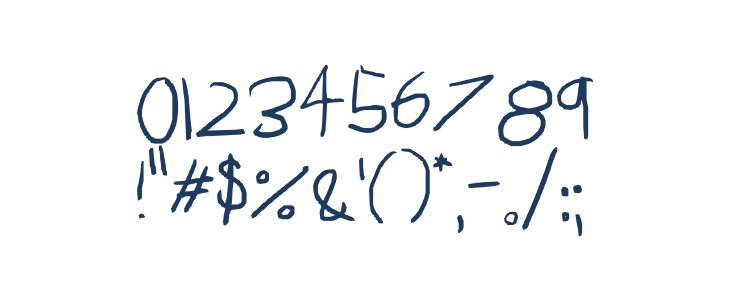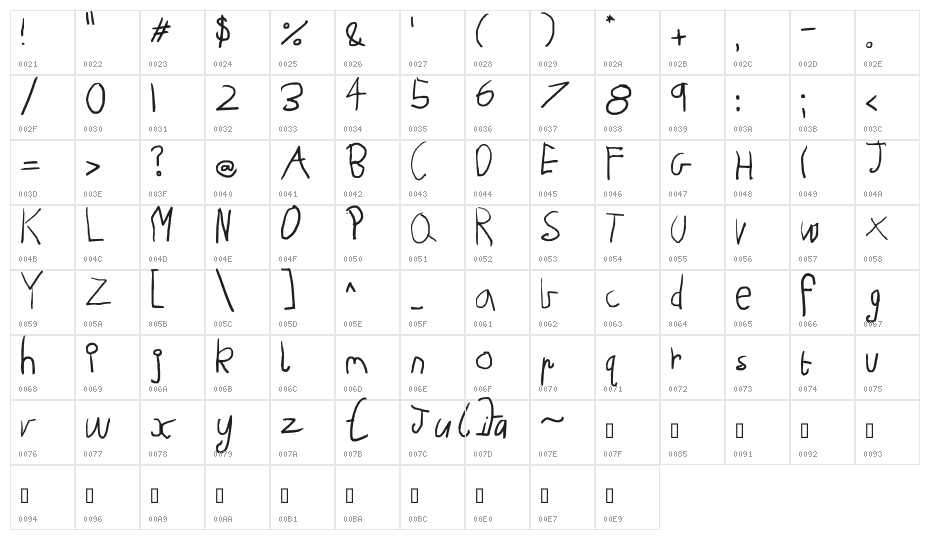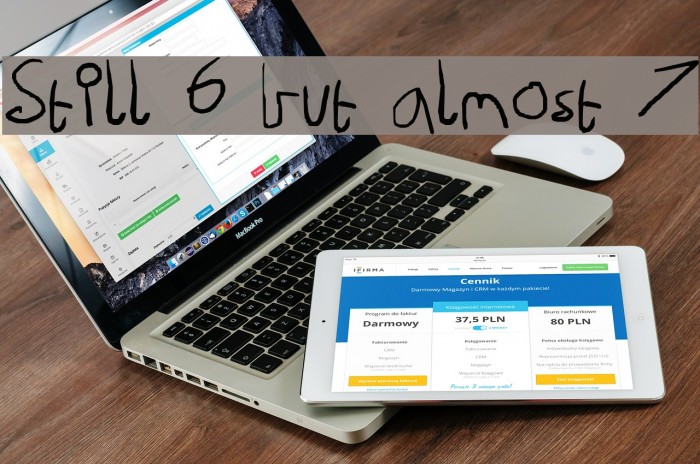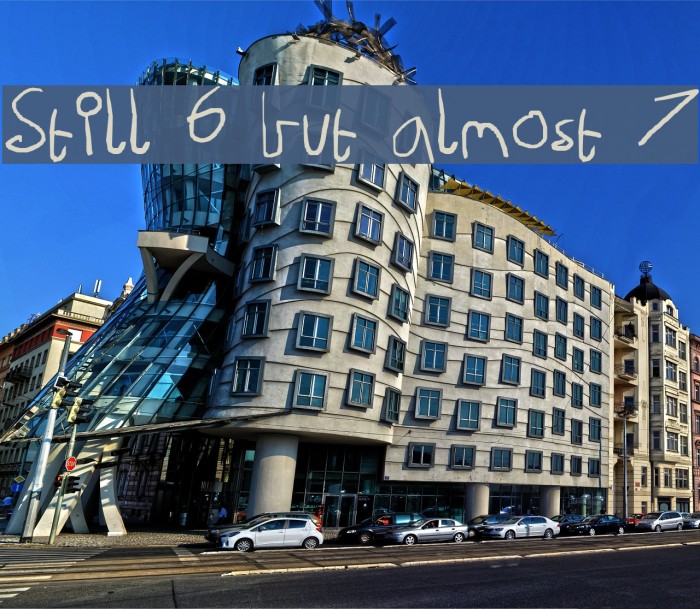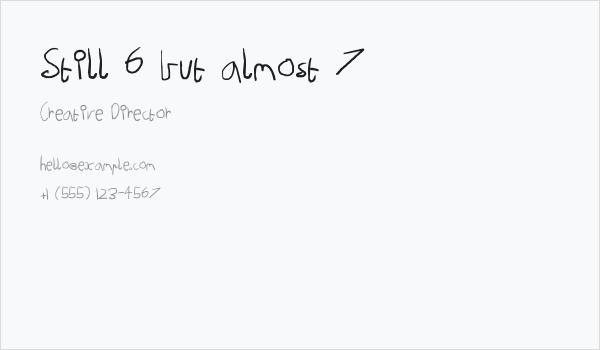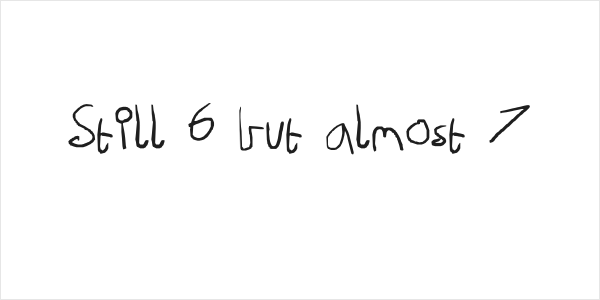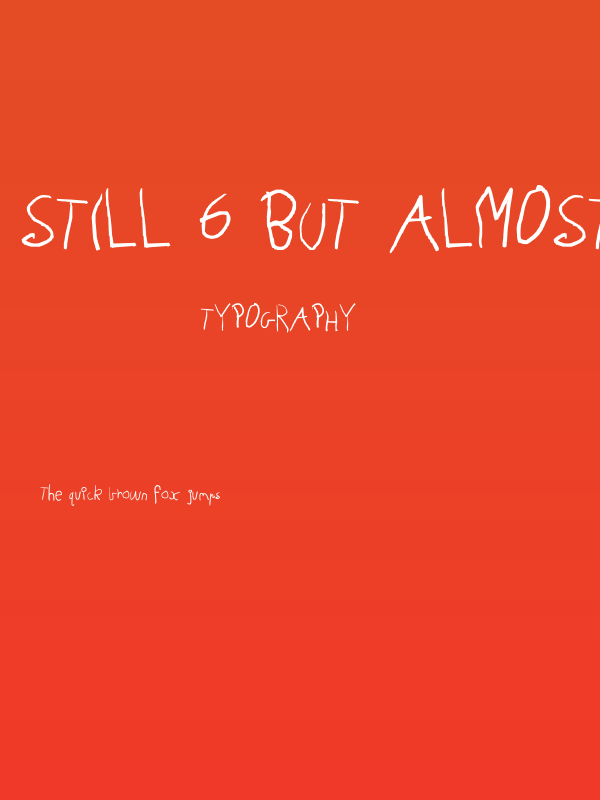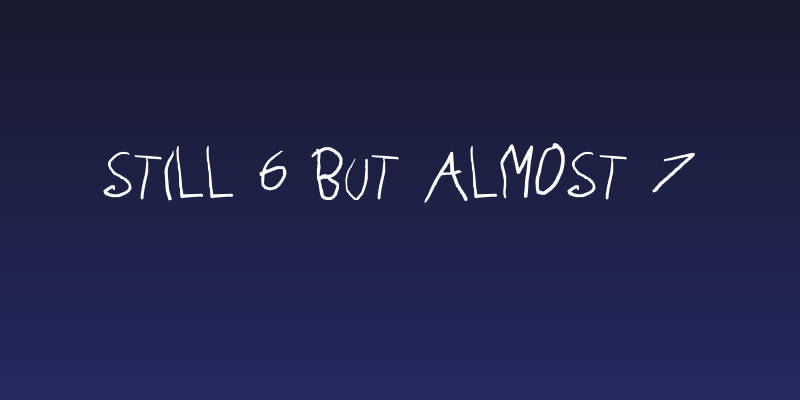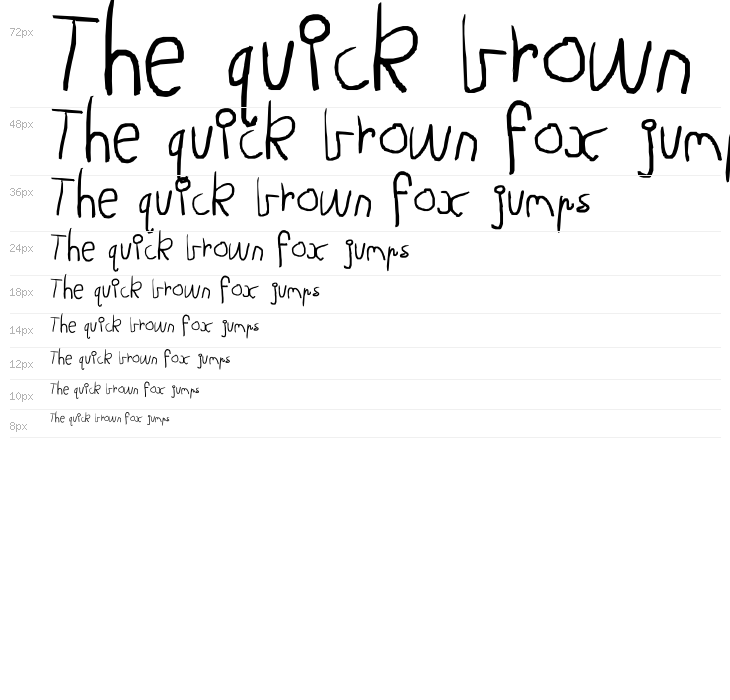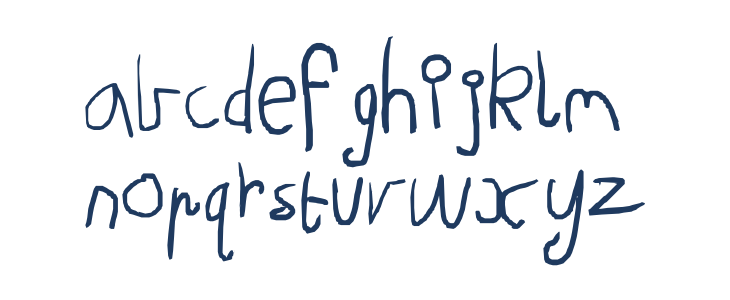
Still 6 but almost 7 Font
Still 6 but almost 7 Description
This font features a playful, hand-drawn style that mimics the look of a child's handwriting. The characters are uneven and irregular, giving it a whimsical and informal appearance. The uppercase letters are bold and slightly larger than the lowercase, which are more varied in height and width. Numbers and special characters maintain the same playful aesthetic, with exaggerated curves and angles. The overall look is casual and friendly, making it suitable for projects that require a personal touch or a youthful vibe.
| Overall Style | Playful, Informal |
| Proposed Projects | Ideal for children's books, playful branding, greeting cards, and informal invitations. |